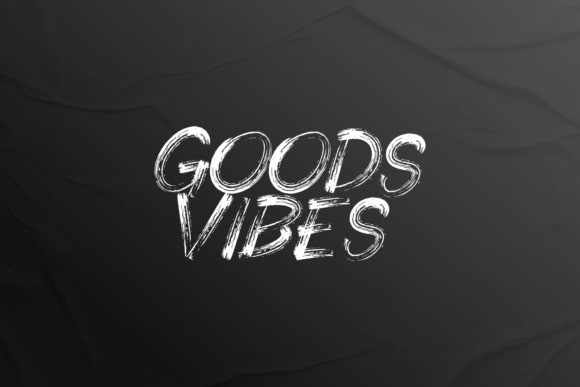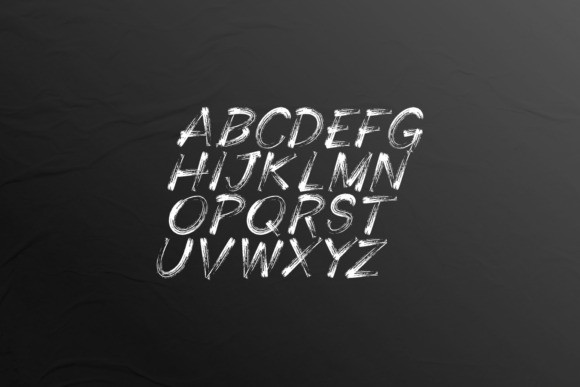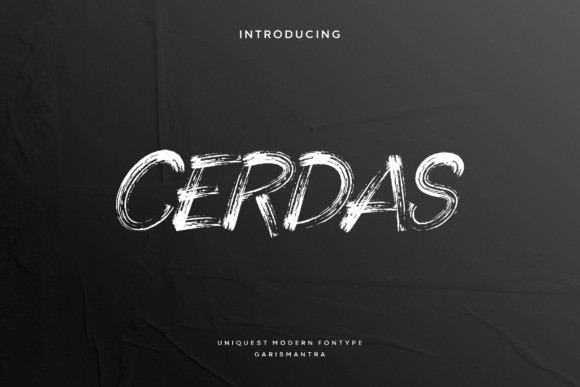
Cerdas Font
Cerdas is a brush font with an all-caps style. Quick-dry strokes and a rough style, Cerdas is perfect for branding projects, art prints with an edge, product packaging, or as a text overlay with attitude to a great background image. Immediately use it on your design to make it look fresh and different, giving it more aesthetic value with a very authentic font.